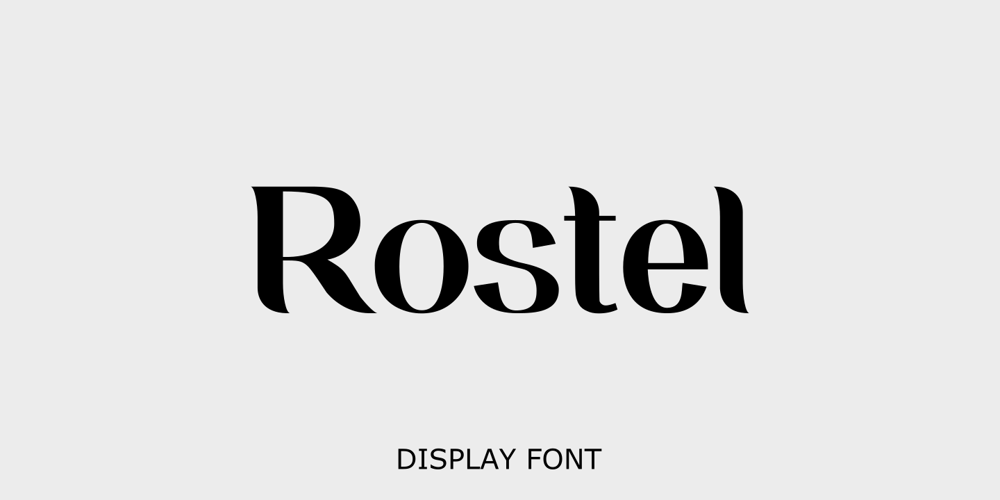
Rostel
Rostel font
Rostel Font Family was designed by Rohmat Sidiq Mustaqim and published by Dieza Design. Rostel contains 1 styles and family package options. Rostel is great for headlines of all sizes, as well as for text blocks that come in both maximum and minimum variations. This font are applicable for any type of graphic design in web, print, motion graphics, and perfect for t-shirts and other items like posters and logos.